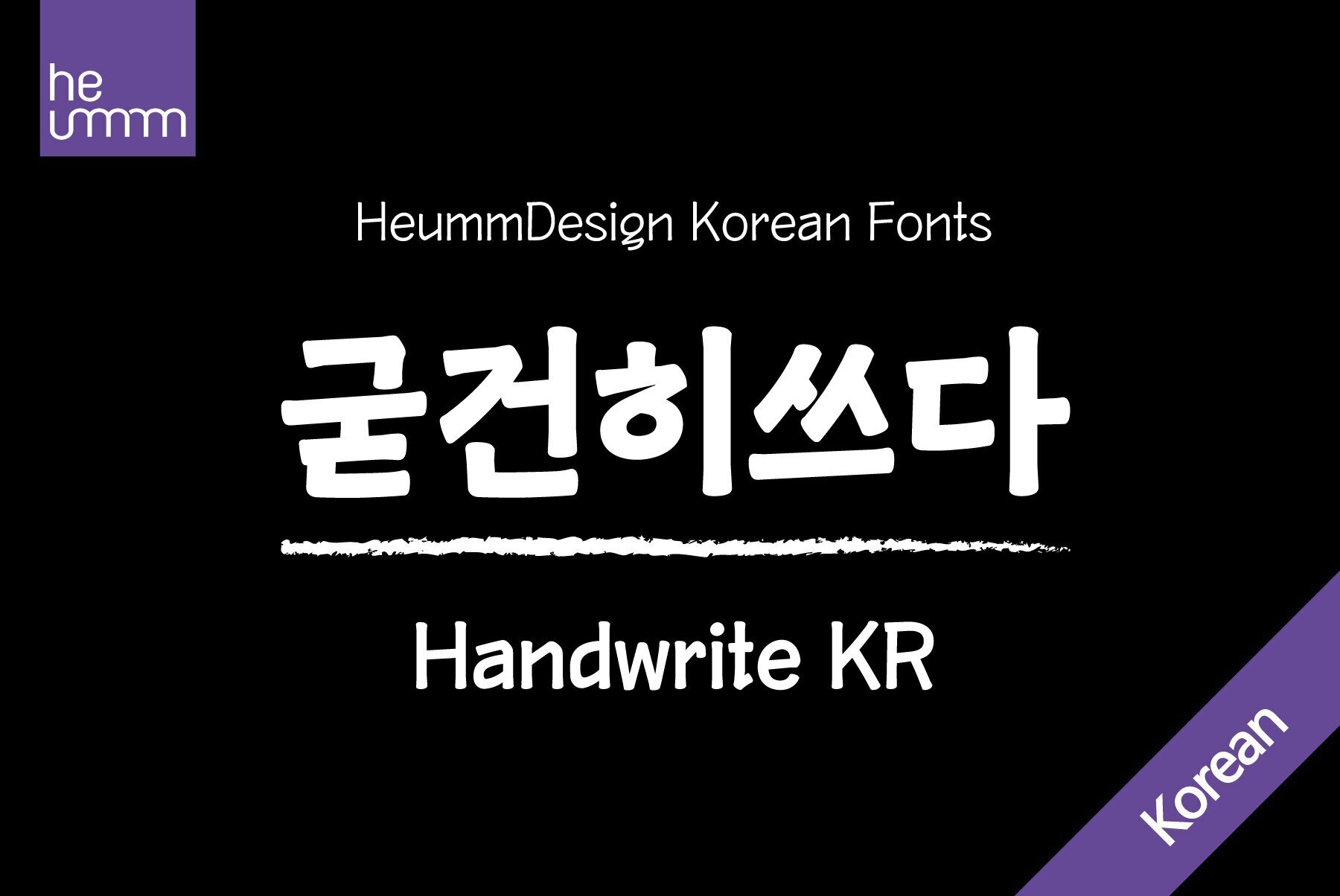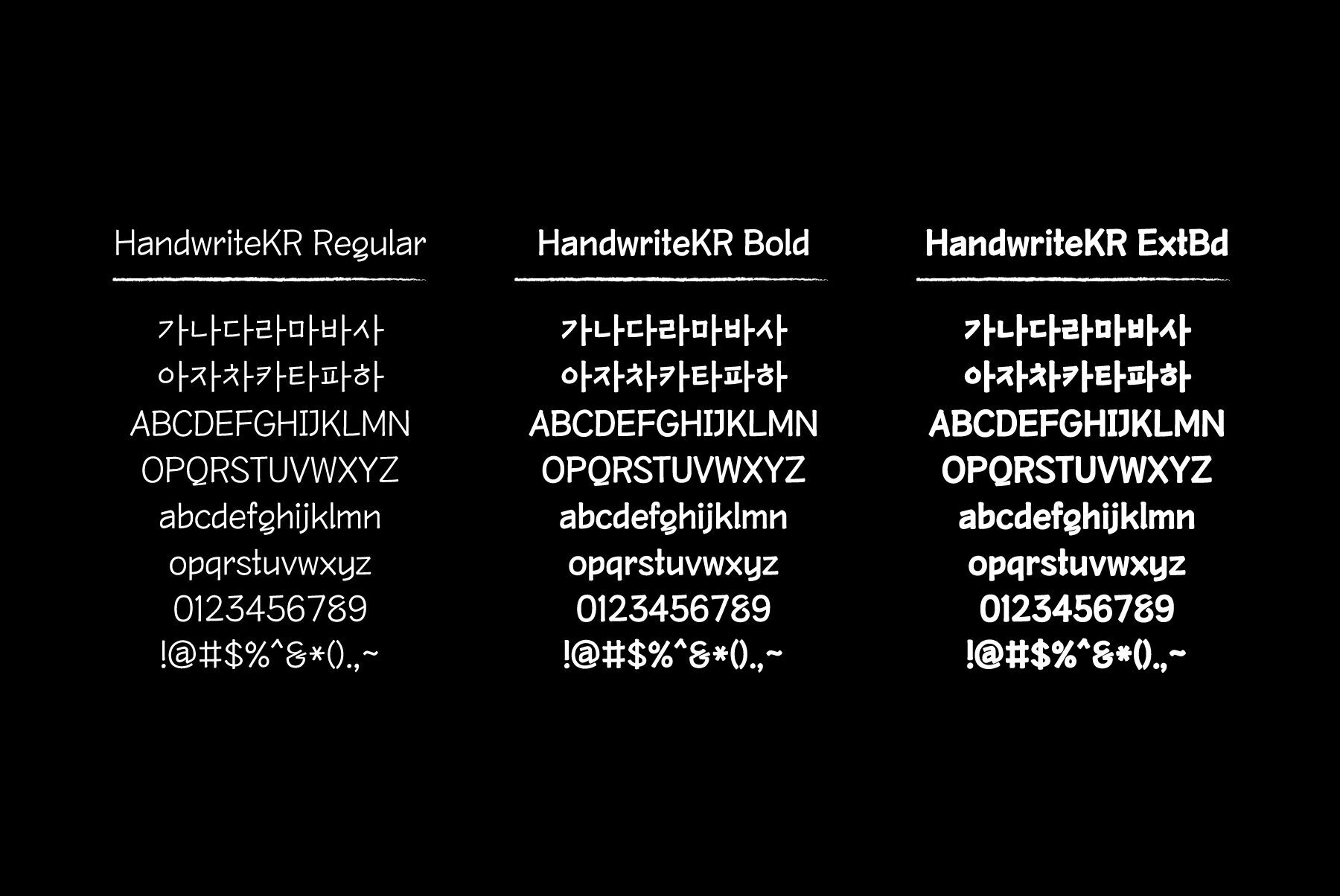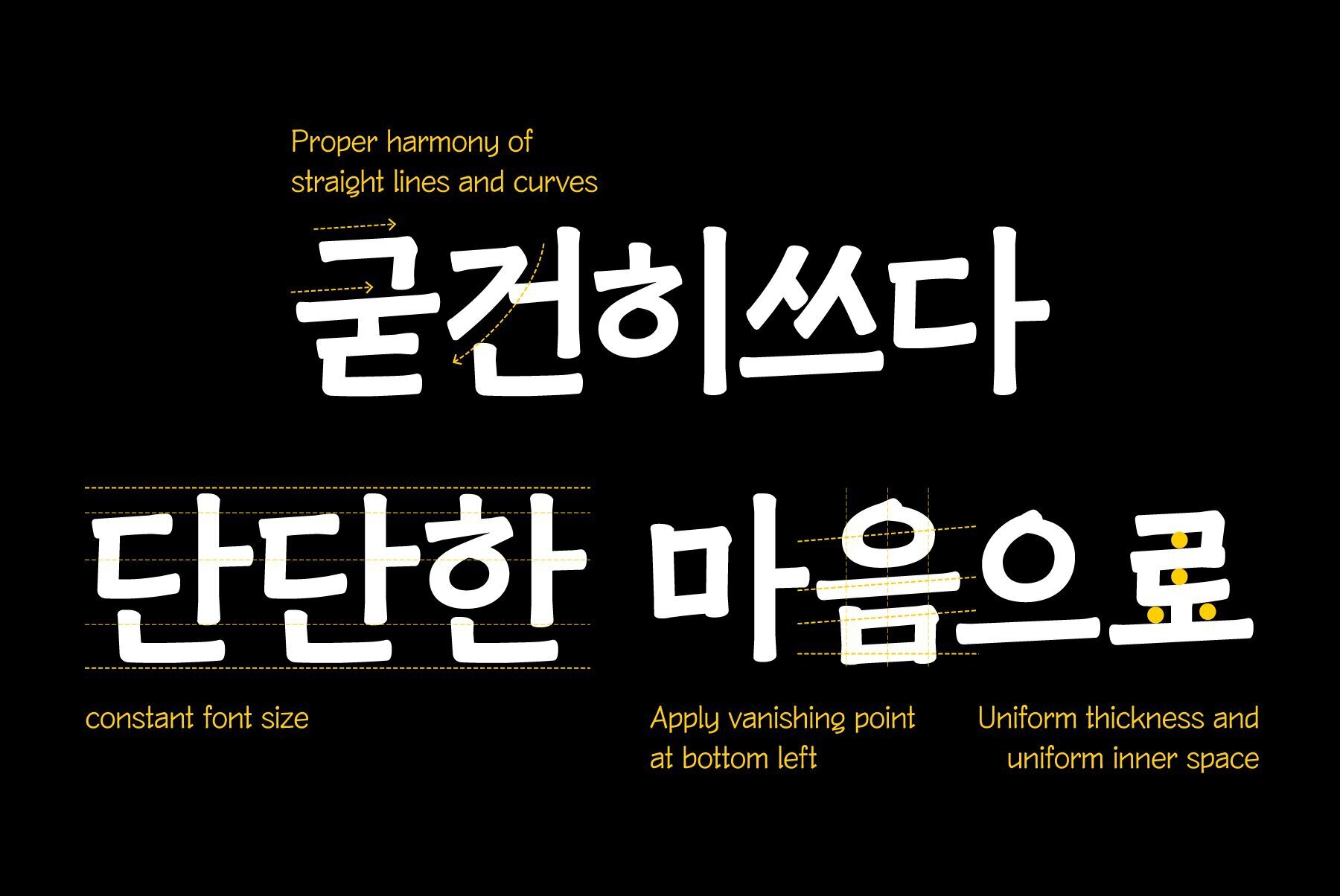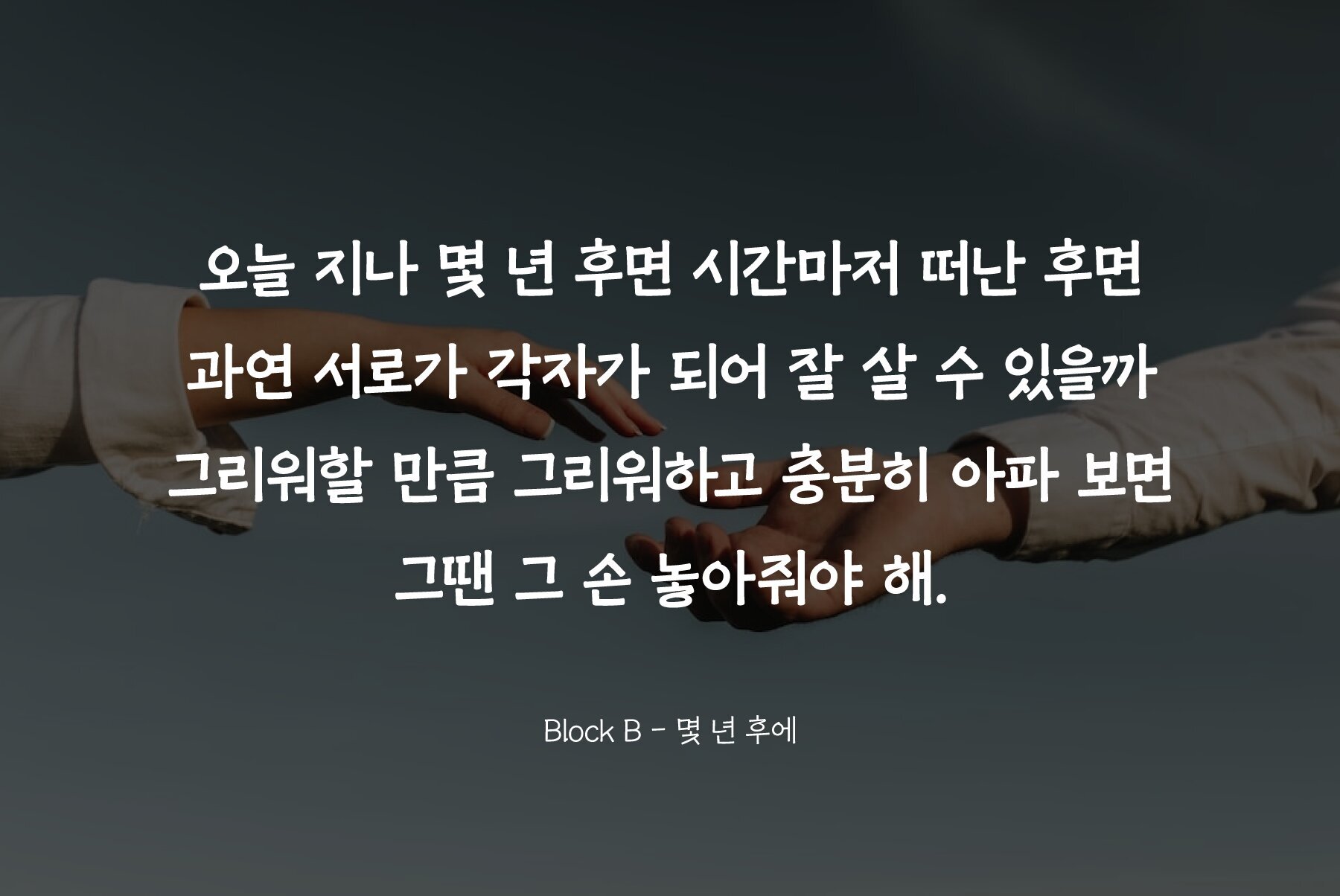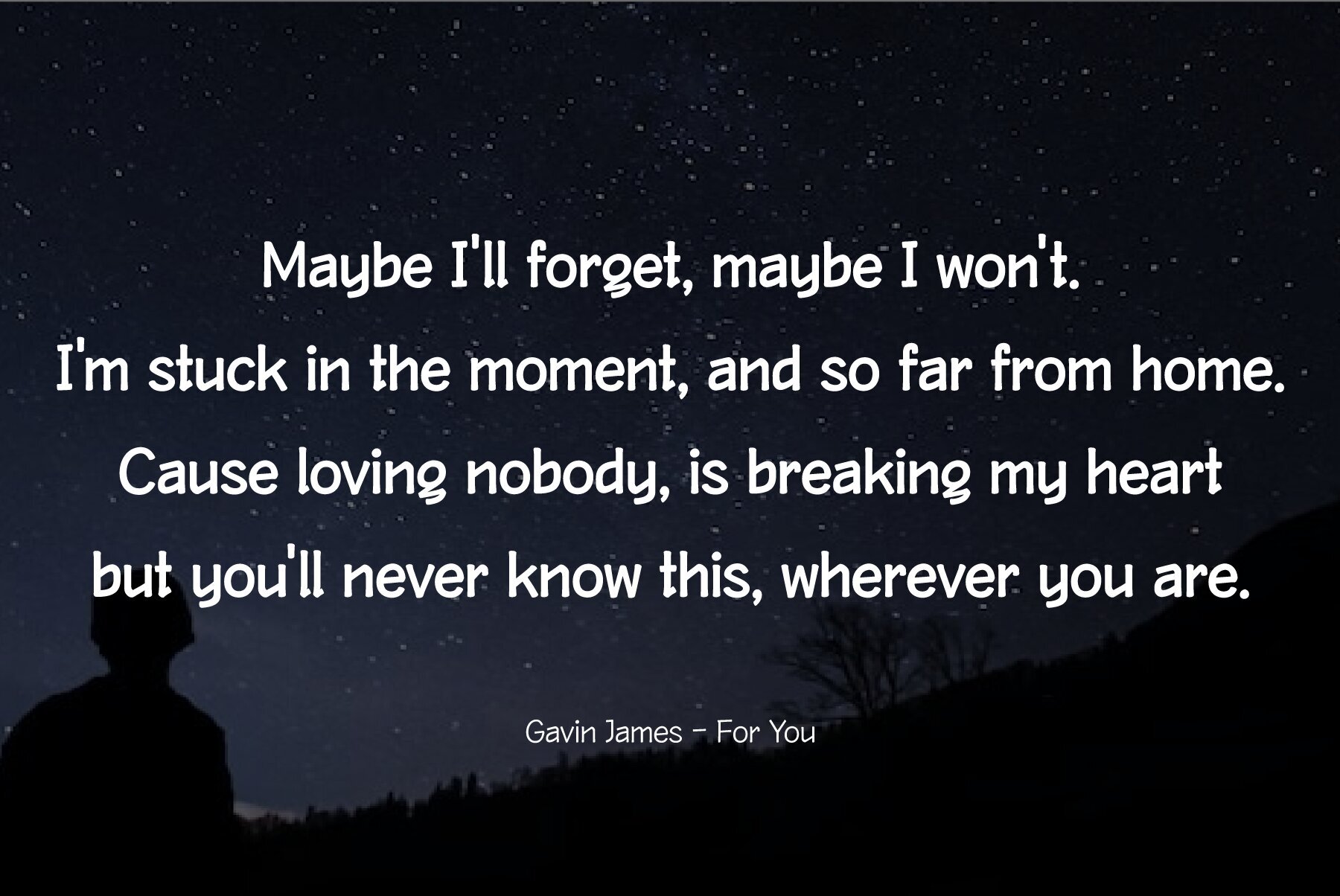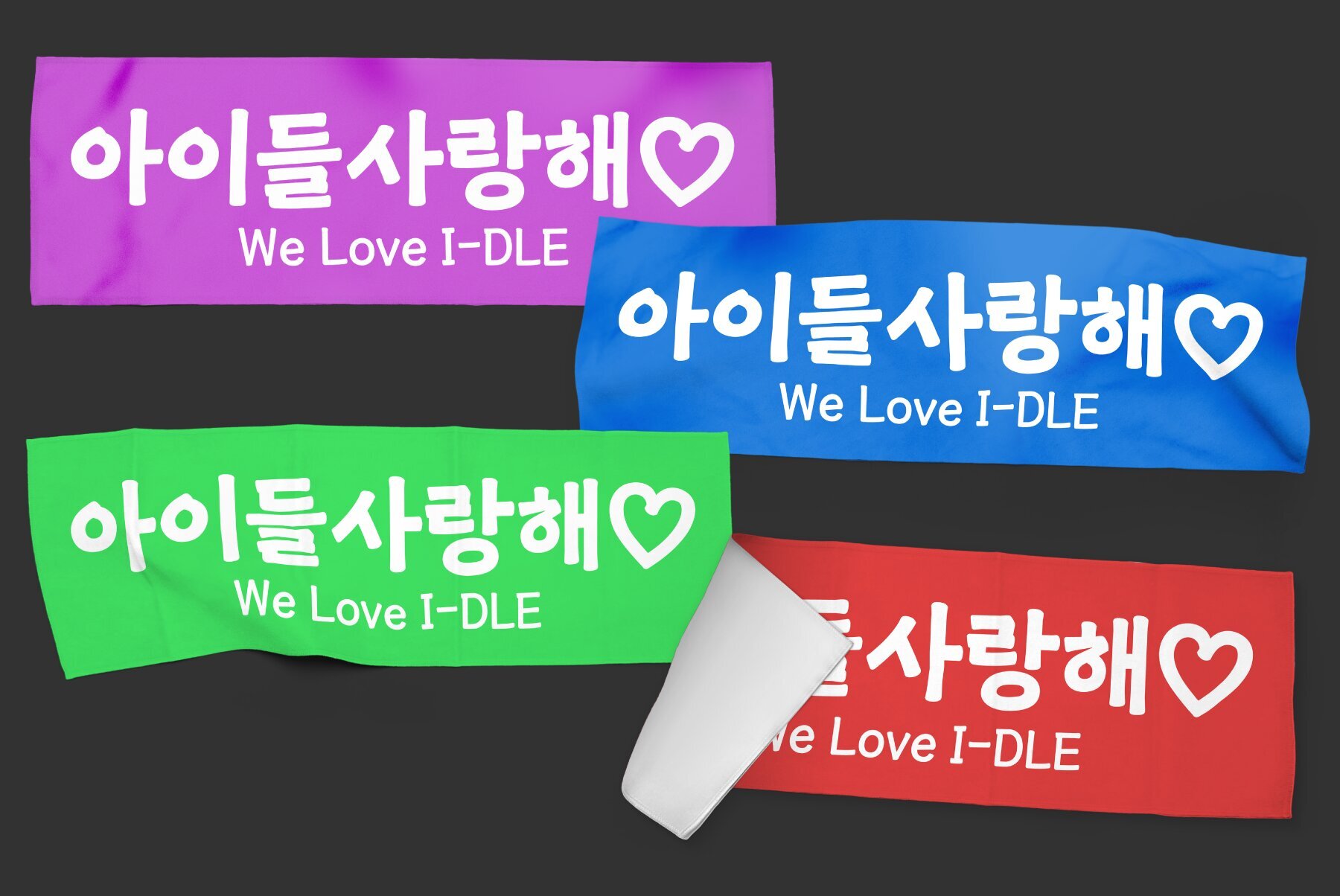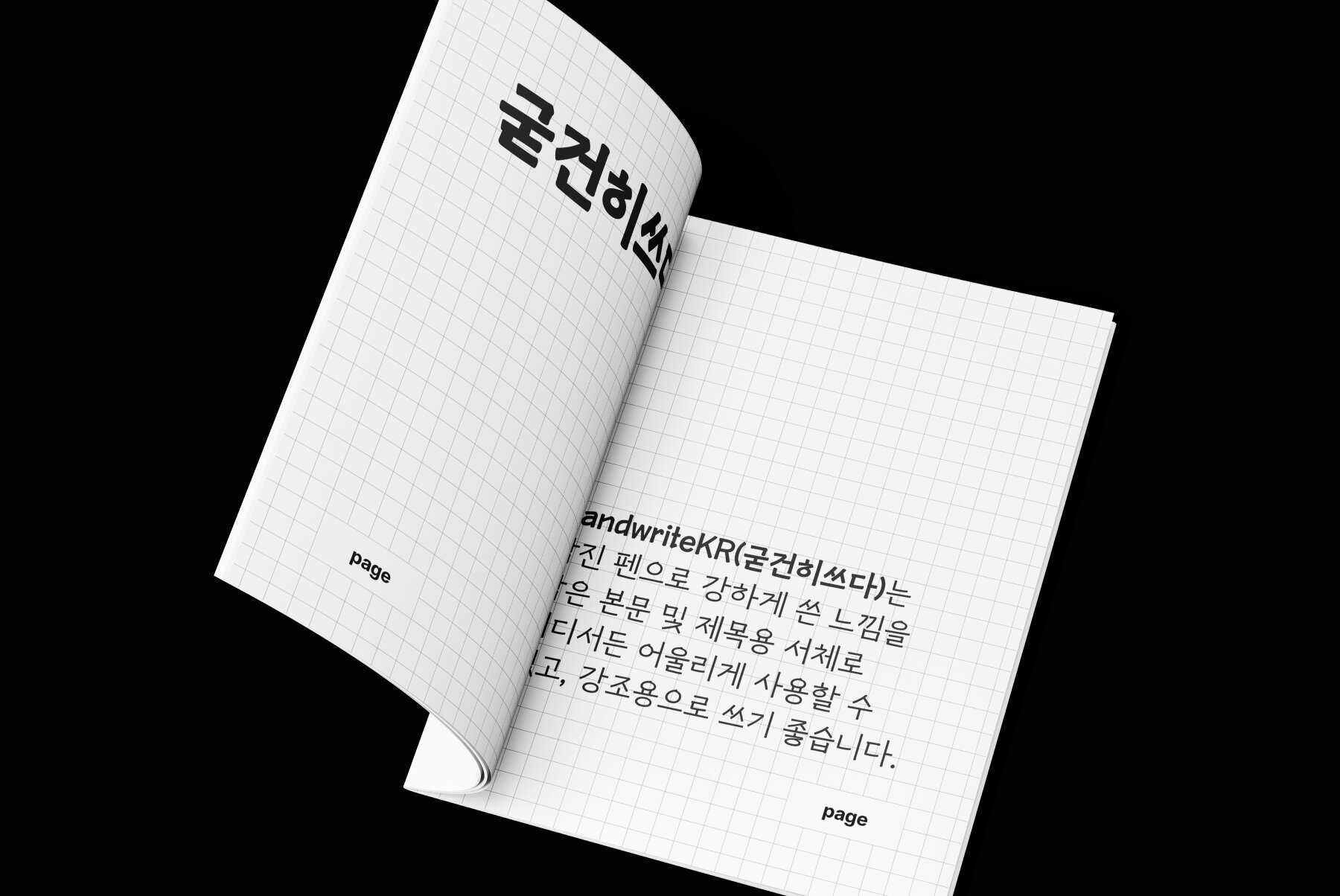
HU Handwrite KR Font
Presenting HU Handwrite KR, a refined handwriting-style font that embodies a perfect balance of gentleness and solidity. Crafted with natural curves and stroke order, this font exudes a distinct personality, while its gentle curve infuses a touch of softness. The unique perspective, achieved by placing a vanishing point in the lower left corner, adds depth and character. Ideal for body text, HU Handwrite KR effortlessly elevates any design with its charming yet sturdy appearance.